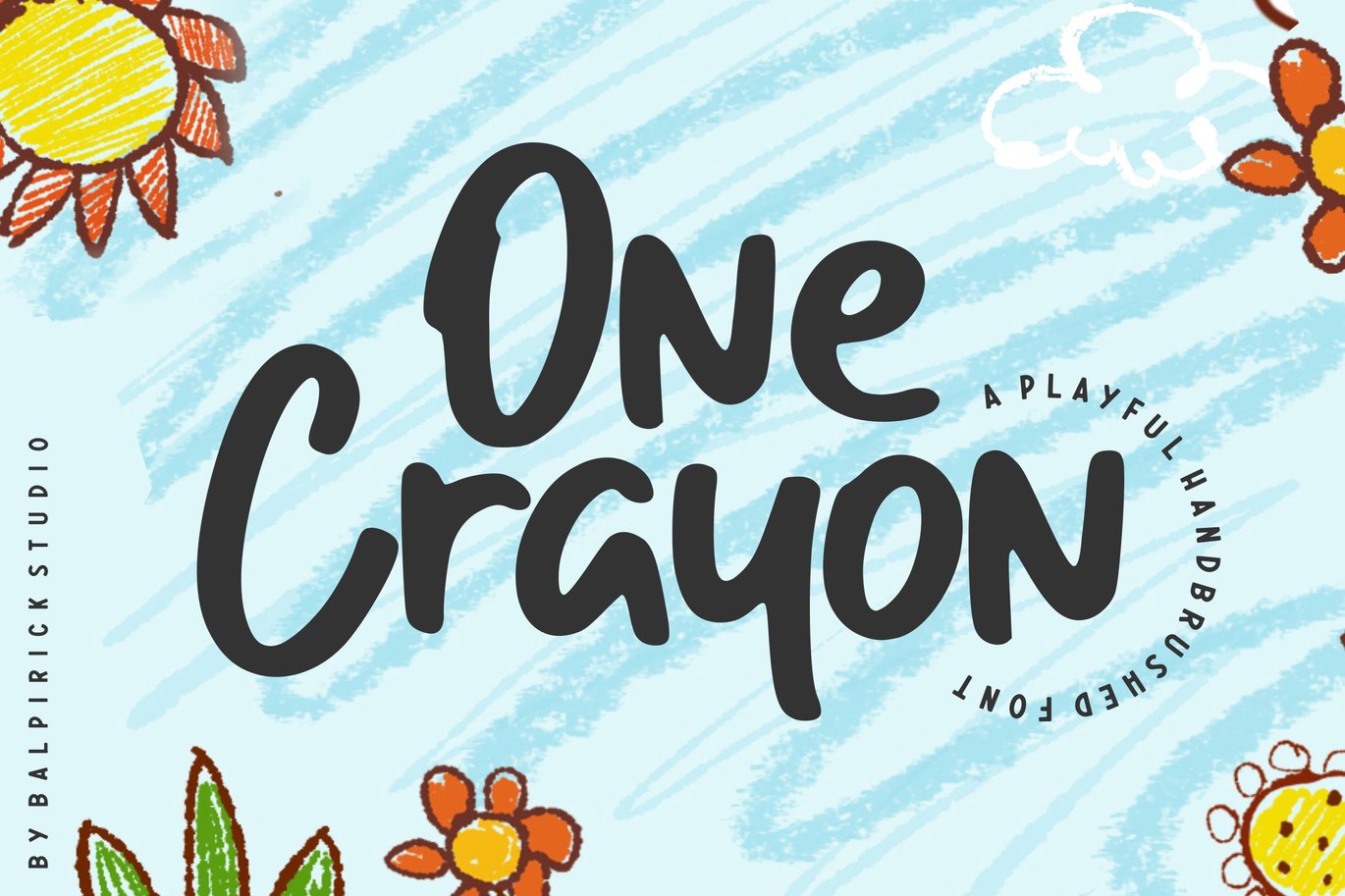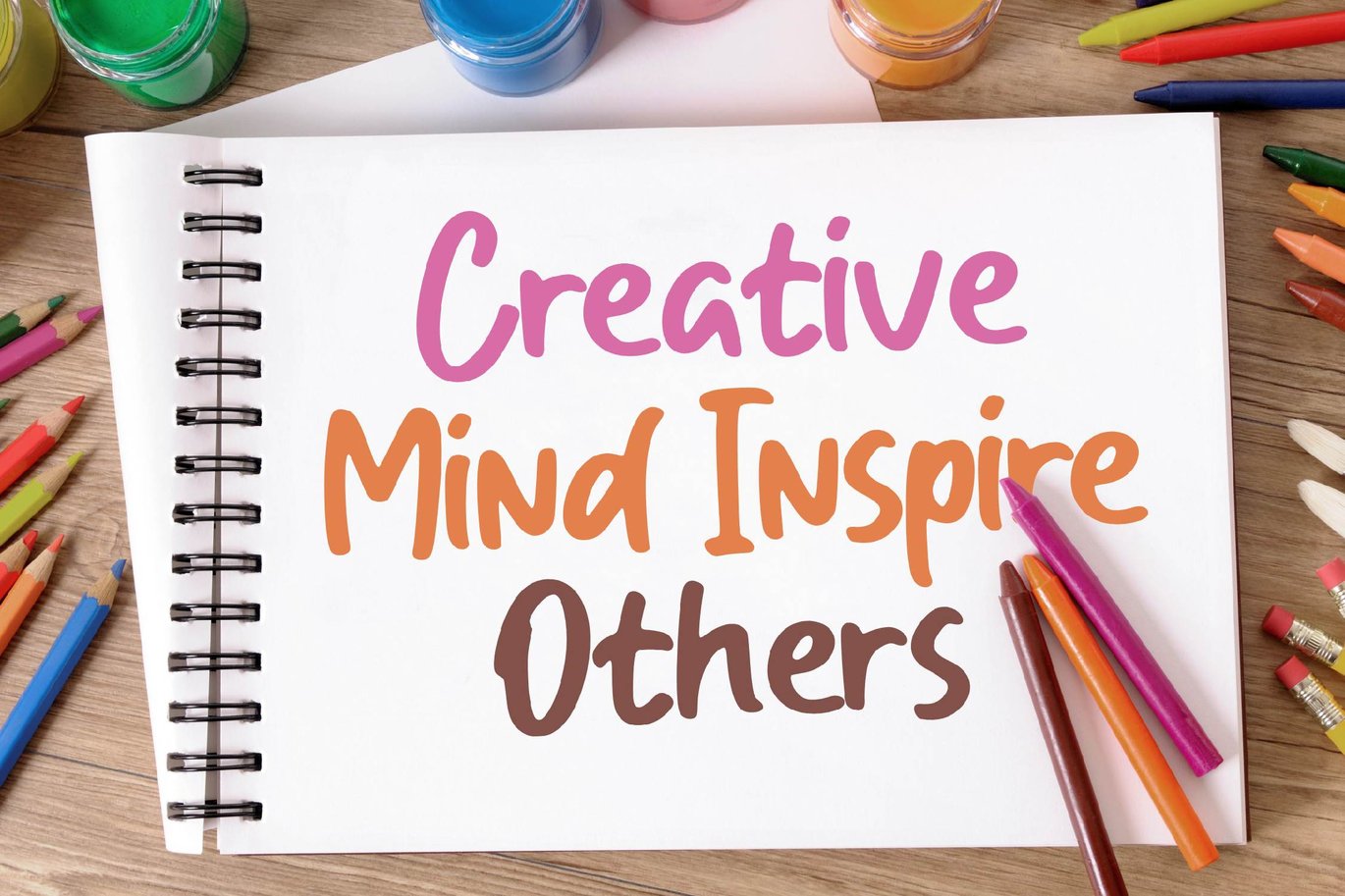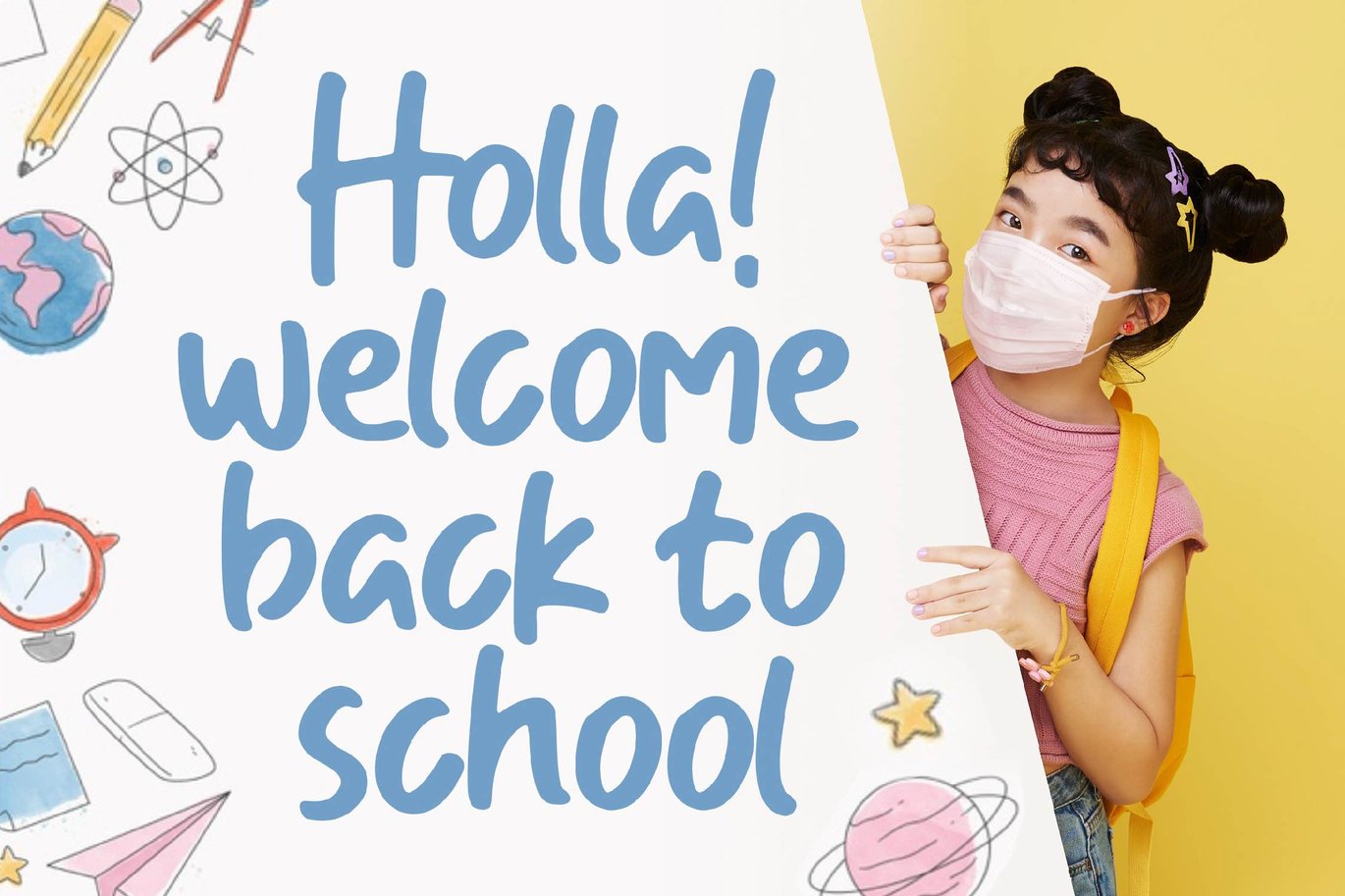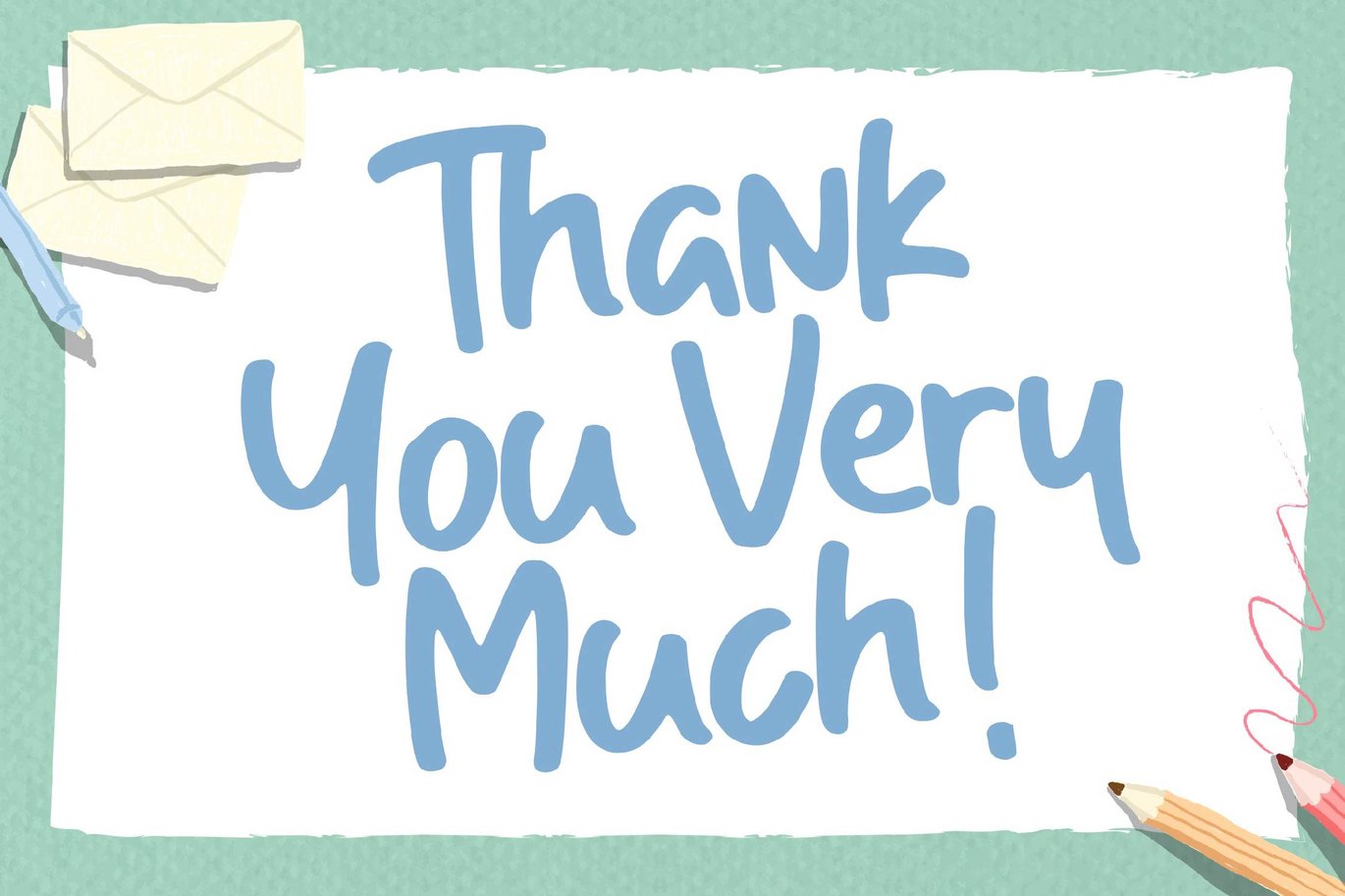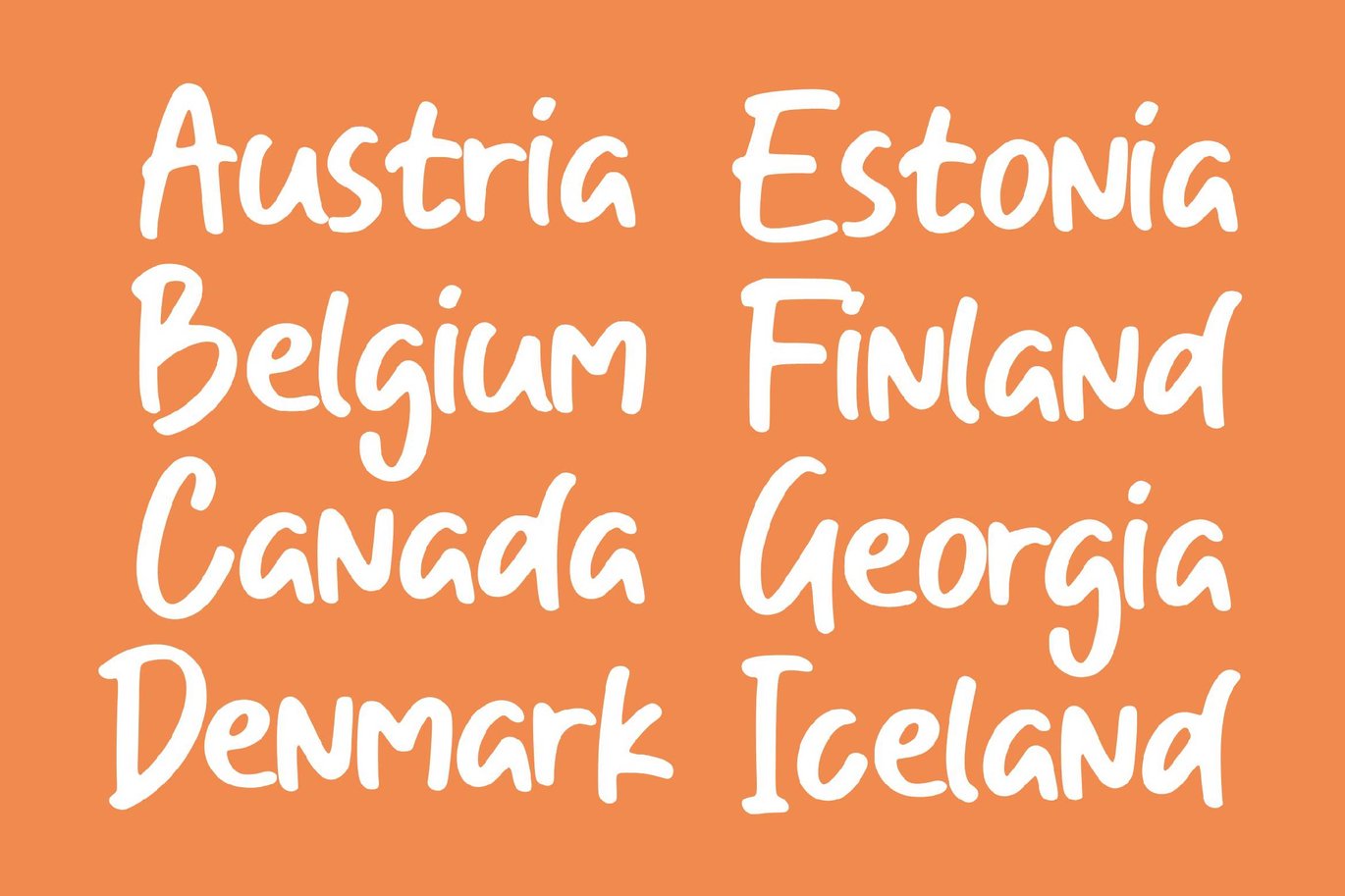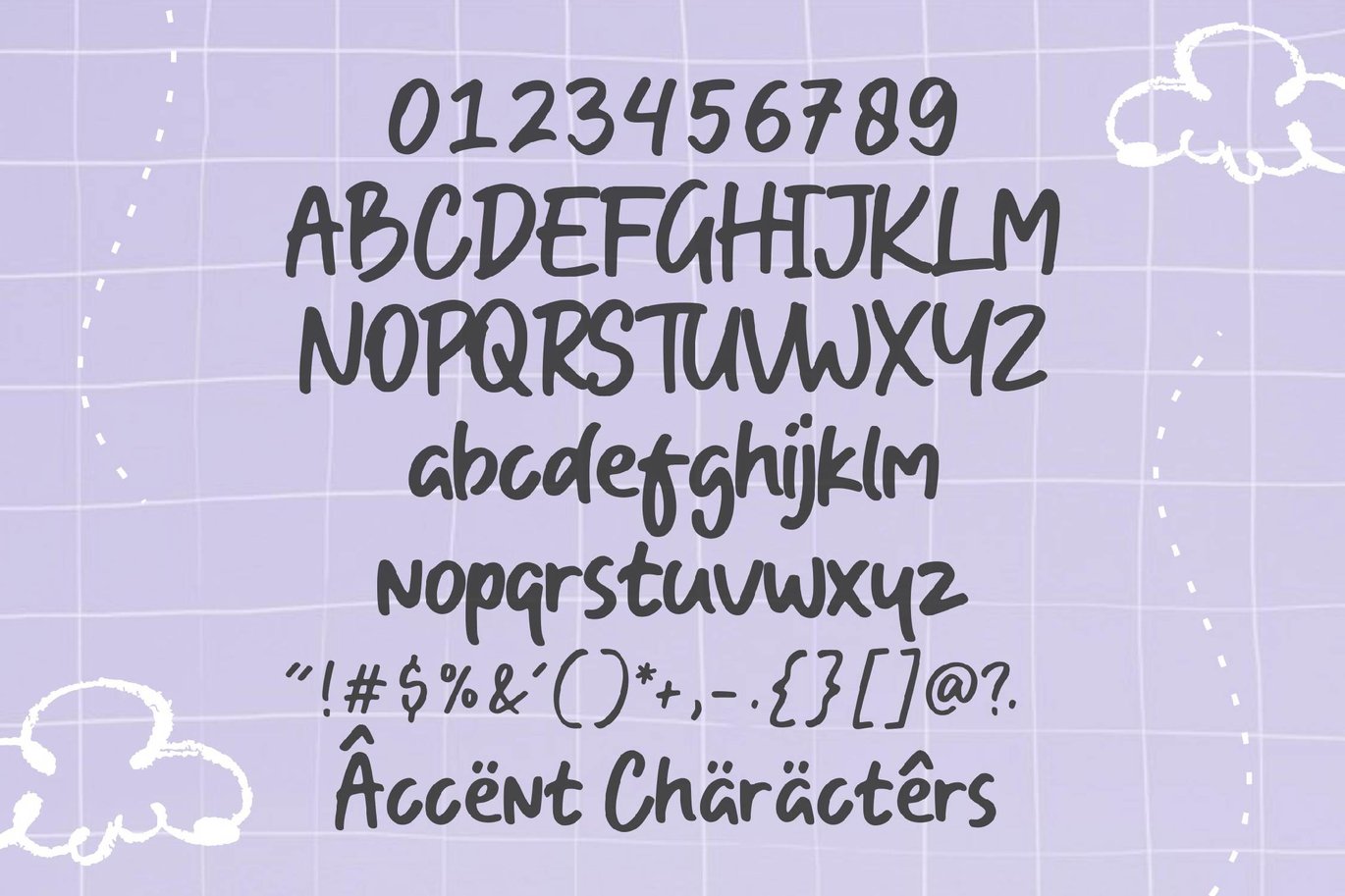
One Crayon – Playful Handbrushed Logo Font
Proudly Present, One Crayon Font.
One Crayon is a Playful Handbrushed Font.
One Crayon is perfect for product packaging, branding project, megazine, social media, wedding, or just used to express words above the background.